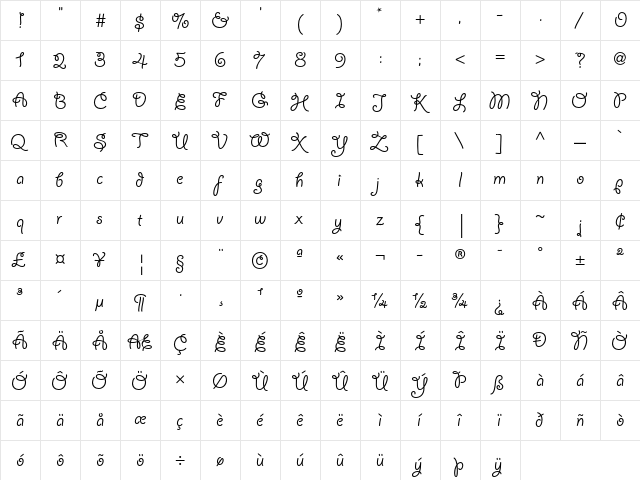
Giddyup Regular
Design Context for Giddyup Typeface
Giddyup is a composed and adaptable typeface that performs quietly and consistently across a wide range of design contexts.